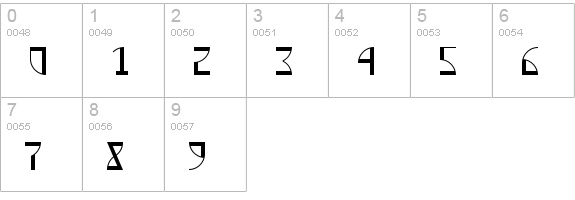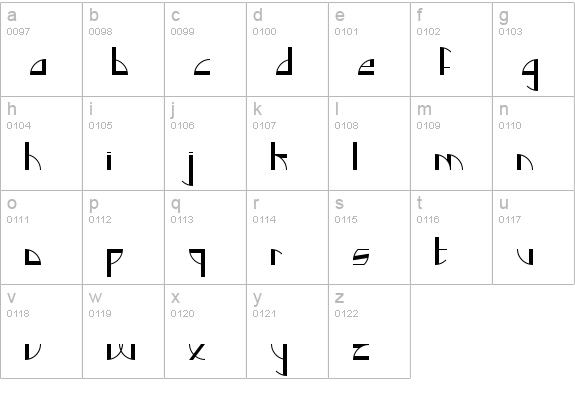
Backlog Normal Font Details
Backlog Normal is the standard, neutral variant in the Backlog typeface family \xE2\x80\x94 well suited to general body text, paragraphs, and standard typographic work.
Backlog Normal font is a versatile and stylish typeface that is perfect for all your design needs. With its clean lines and modern aesthetic, this font is sure to make a statement in any project. Whether you're creating a logo, designing a website, or crafting a poster, Backlog Normal font will elevate your design to the next level. This font features a balanced combination of bold and thin strokes, creating a harmonious and visually appealing look. The letterforms are meticulously crafted, with precise curves and angles that exude professionalism and elegance. Its legibility makes it suitable for both headlines and body text, ensuring that your message will be effortlessly communicated to your audience. One of the best aspects of Backlog Normal font is that it is freely available to download at FontsMarket.com. This means that you can easily access and use this font in your projects without any hassle. Whether you're a professional designer or a hobbyist, this free font option allows you to add a touch of sophistication to your work without breaking the bank. So why wait? Download Backlog Normal font today from FontsMarket.com and start creating stunning designs that captivate and inspire. With its seamless versatility and timeless appeal, this font is sure to become a valuable asset in your design toolkit. Don't miss out on the opportunity to make your projects shine with the elegance and style of Backlog Normal font.